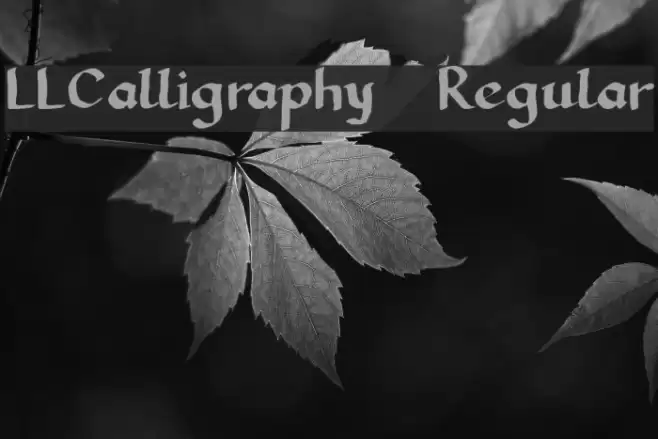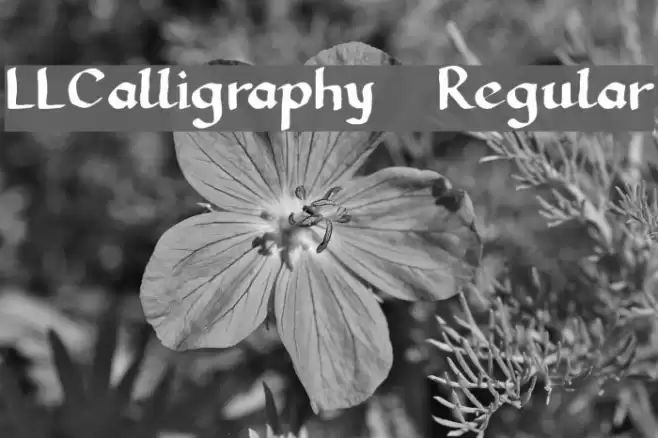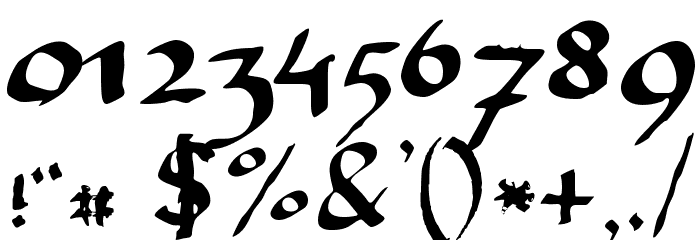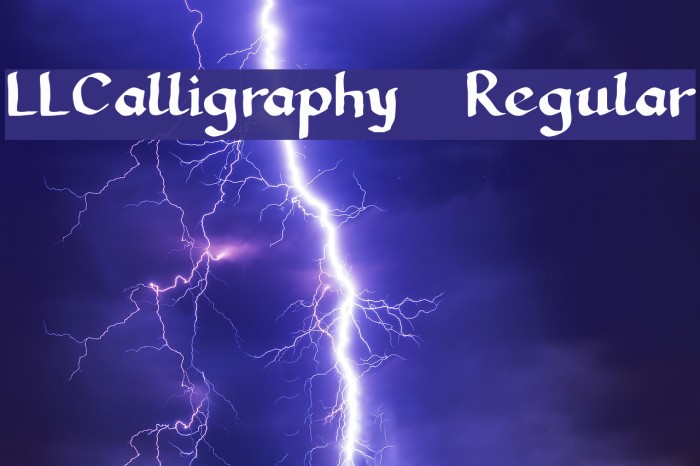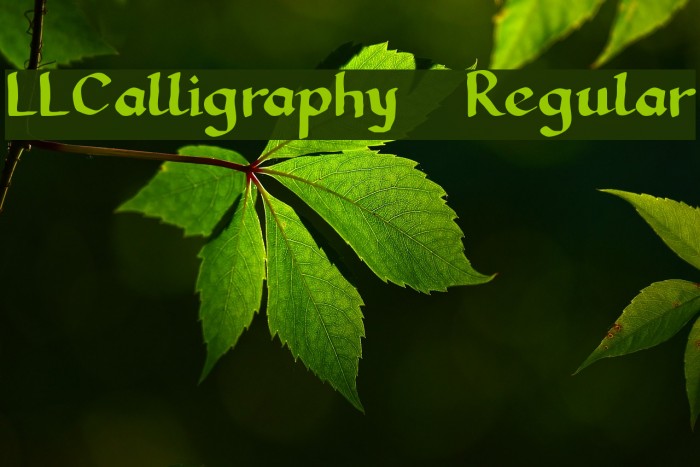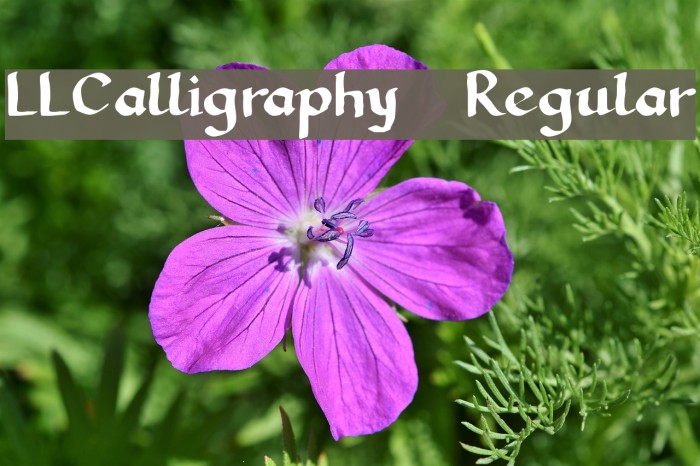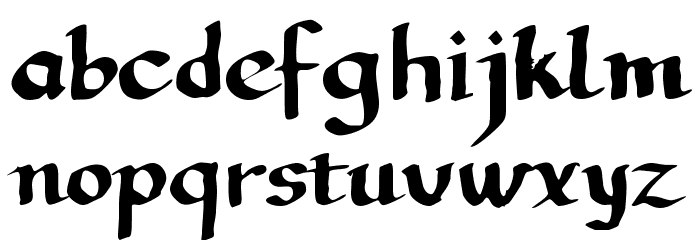
LLCalligraphy Regular Font
LLCalligraphy Regular Description
This font exudes a classic calligraphic style, reminiscent of traditional handwritten scripts. The characters are elegantly crafted with a flowing, artistic flair, featuring varying stroke widths that add a dynamic and expressive quality. The uppercase letters are bold and commanding, while the lowercase letters maintain a graceful and fluid appearance. Numbers and special characters are designed with the same attention to detail, ensuring consistency across all elements. The overall aesthetic is both timeless and sophisticated, making it suitable for projects that require a touch of elegance and refinement.
A classic calligraphic font with elegant, flowing strokes and dynamic character design from Uncategorized fonts.
- Proposed Projects: Ideal for wedding invitations, formal event programs, branding for luxury products, and artistic book covers.
- Overall Style: Classic
- Use Case: Logos, Invitations, Decorative text